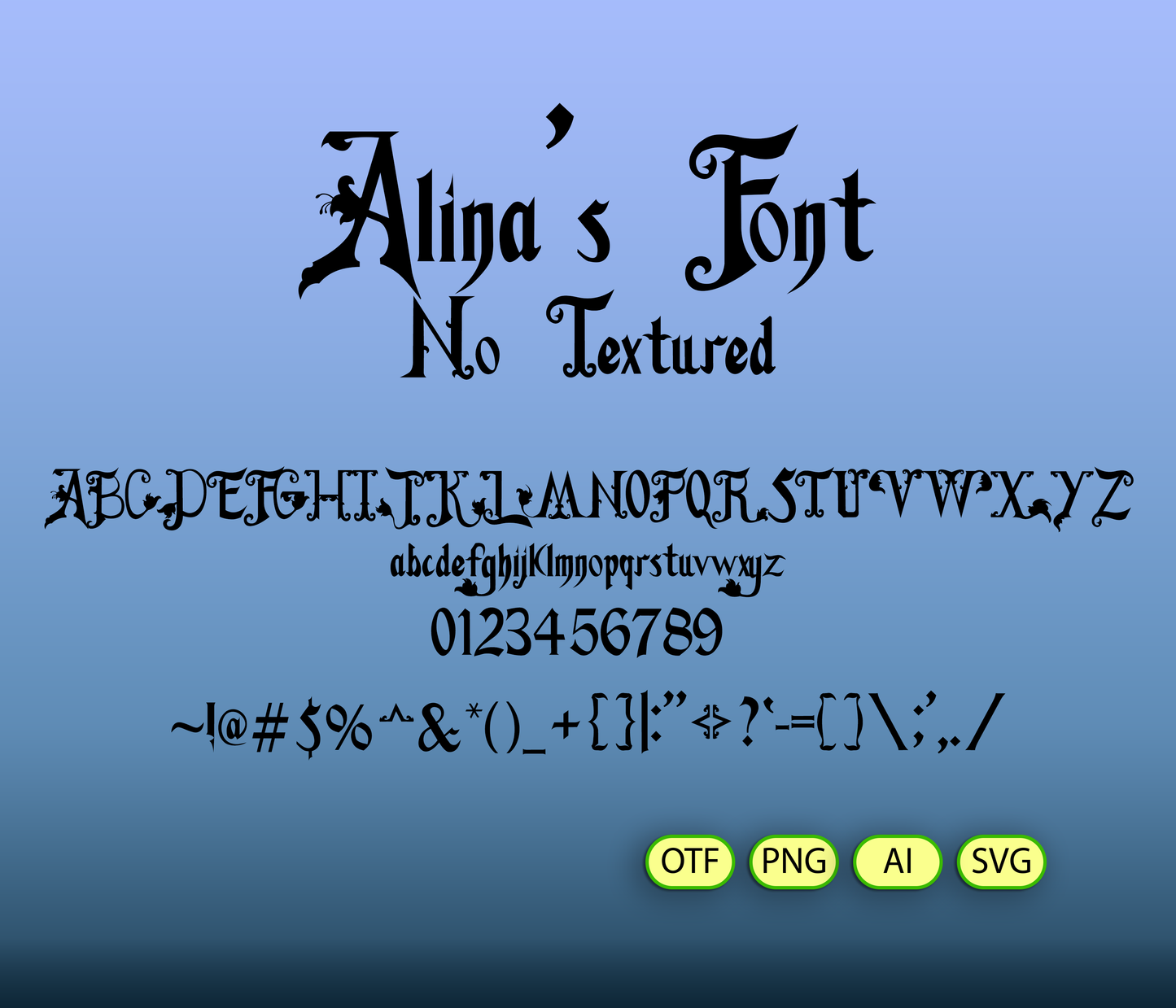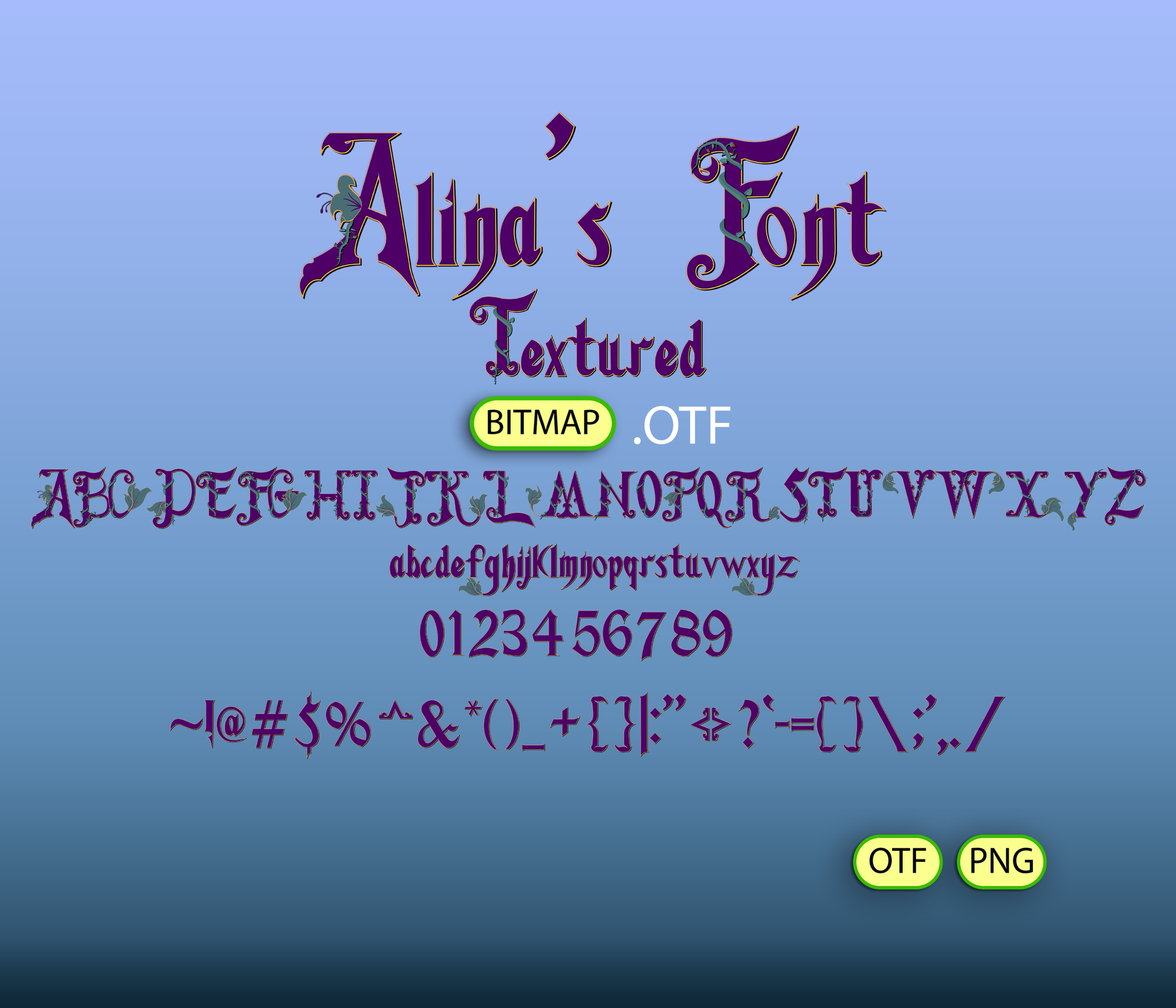
Gothic Family Font Textured
Eerie Elegance Texture Font: A Digital Halloween Gothic Family-Inspired Typeface
Introducing the Eerie Elegance Texture Font – your go-to ghastly typeface that's crawled out from the whimsical gloom of a gothic family mansion. Each letter is brewed with a blend of eerie elegance, making it the spook-tacular choice for all your Halloween shenanigans. Planning a Halloween party that's the talk of the tombstone? This font has got you covered. Whipping up some devilishly delightful cake toppers? Our font is dying to grace your gruesome goodies.
From bone-chilling birthday invitations to creepy Cricut machine crafts, this font is dead-set on making every project frightfully fabulous. The texture of each character is as rich and dark as a peculiar uncle's humor, ready to add a dab of the dreadful to all your creative capers. And with seamless compatibility for Print on Demand and Cricut machine platforms, transitioning from the digital grave to the physical realm is a ghostly breeze.
Dare to invite a hint of the haunted into your designs?
Our Eerie Elegance Texture Font is ready to help your projects transcend the mortal plane and venture into the vale of the vampy. With a typeface this terrifyingly terrific, your creations will not just catch eyes, they'll capture souls.
What Font is Eerie Elegance Font?
Envision a typeface that encapsulates a unique blend of sophistication and spookiness. This font has been carefully crafted to mirror the elegant yet eerie style seen in various gothic family adaptations. Featuring an extensive character set, including alphabets, numbers, and special characters, it offers a comprehensive tool for any design that seeks to echo a peculiar charm.
What Can You Do With Eerie Elegance Font?
- Halloween Decorations: Ideal for crafting spooky and stylish party decor.
- Themed Event Invitations: Create invitations that capture a unique gothic charm.
- Gothic Art Projects: Perfect for artwork that embraces a darker aesthetic.
- Film and Theater Posters: Use in promotional materials for productions inspired by gothic families.
- Custom Apparel: Design clothing that channels your inner mysterious matriarch or patriarch.
- Graphic Novels and Comics: Bring a gothic twist to your storytelling.
- Brand Identity: Incorporate into branding for businesses that embrace the unconventional.
- Digital Content: Stand out in social media and web design with a touch of gothic flair.
- Personalized Stationery: Craft stationery that reflects a unique elegance.
- Home Decor: Create wall art and items that embody gothic charm.
The Eerie Elegance-inspired font is not just a typeface; it's a gateway into a world where the odd is celebrated, and the mundane is unheard of.